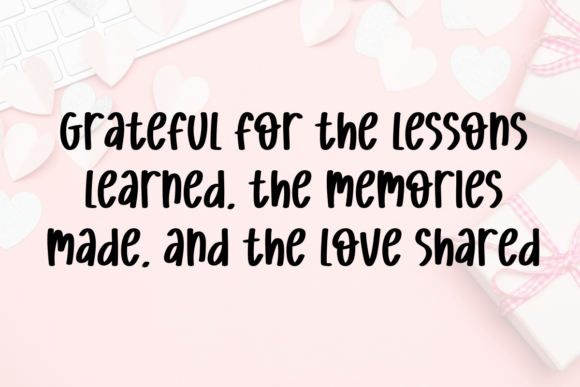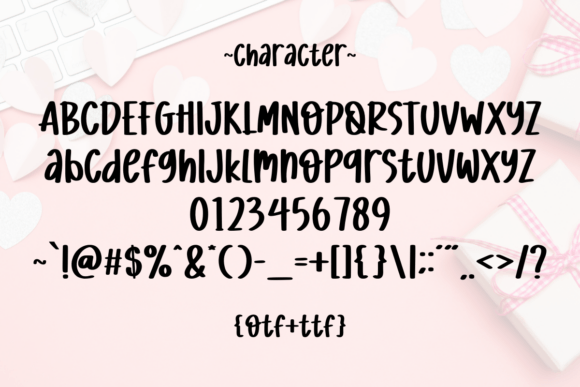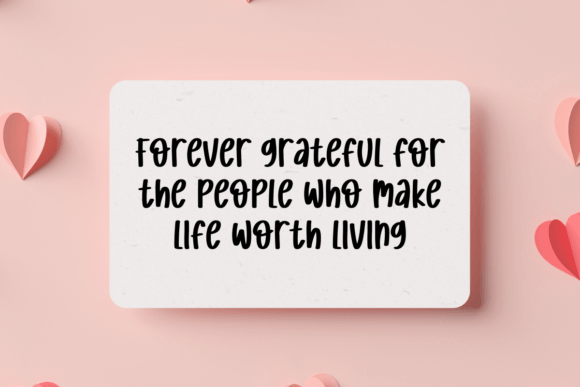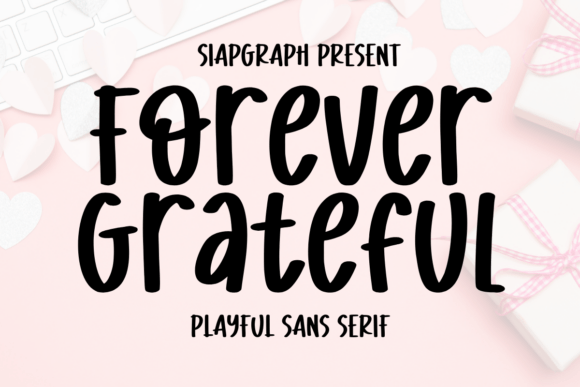
Introduction to Forever Grateful Font
Forever Grateful is a fun and playful sans-serif font with a cute and charming style.
Its natural strokes and touches give it a lively and whimsical feel It’s great for journals, KDP projects, notebooks, memos, planners, teaching materials, Cricut designs, silhouettes, sublimation, key chains, women’s clothing, and other creative projects.
Why Choose Forever Grateful Font?
Forever Grateful Font offers exceptional quality and versatility, making it a valuable addition to your design toolkit. Whether you’re creating for personal projects or commercial use, Forever Grateful Font delivers professional results.